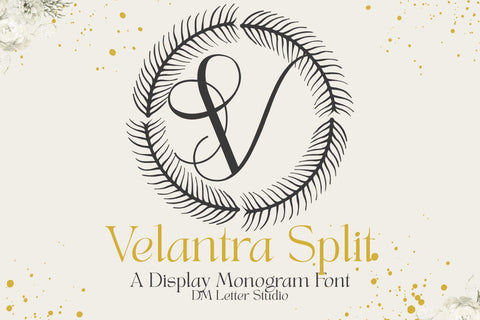
Velantra Monogram Font
Meet Velantra, the Monogram Font
Velantra Monogram Font turns simple initials into poised, boutique-ready emblems. Strokes feel smooth and confident. Generous counters keep tiny tags readable, while balanced proportions deliver a premium look at any size. Use it for wedding suites, boutique logos, keepsake gifts, foil seals, and elegant packaging. In addition, Velantra pairs beautifully with modern serifs and quiet humanist sans fonts, so layouts stay refined without extra effort.
Where this monogram font shines
Set single, double, or triple initials for logos, seals, menus, and place cards. Then frame them with laurel rings, oval borders, or thin rules to echo the graceful geometry. Since the metrics favor symmetry and clarity, you can compose centered marks in minutes. As a result, thumbnails pop on marketplaces, and your listings feel consistent from invitations to signage. Velantra also scales smoothly from jewelry cards to foyer displays.
Design tips for Velantra Monogram
Keep initials large and let white space breathe. Pair the headline monogram with a soft serif for body text or a clean sans for labels. Then, add micro shadows, a fine inner stroke, or a delicate frame to create depth. Because the forms are airy and balanced, textured papers and metallic accents raise perceived value. However, keep wording short so the monogram remains the hero—especially on small favors and tags.
Select stylistic alternates for key letters
Curves tuned for foil, letterpress, engraving, laser, and clean vinyl cutting
Why creators choose Velantra
You want elegance that reads at a glance and sells across many product types. Velantra Monogram Font delivers steady clarity, fast layout, and a cohesive brand voice from invites to packaging and gifts.